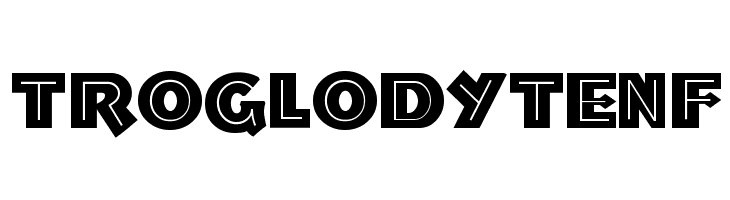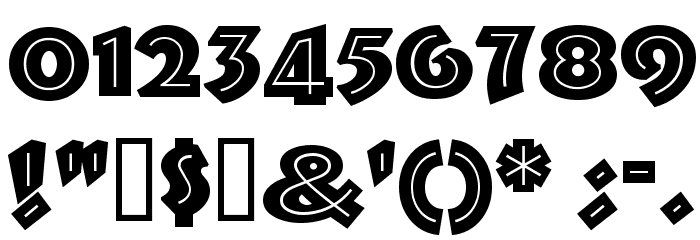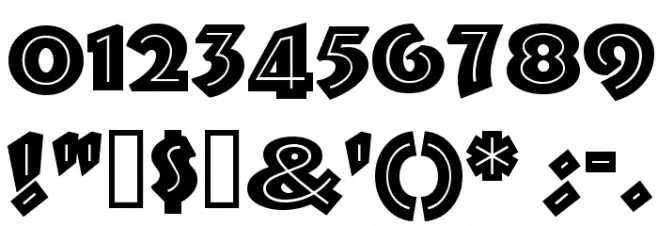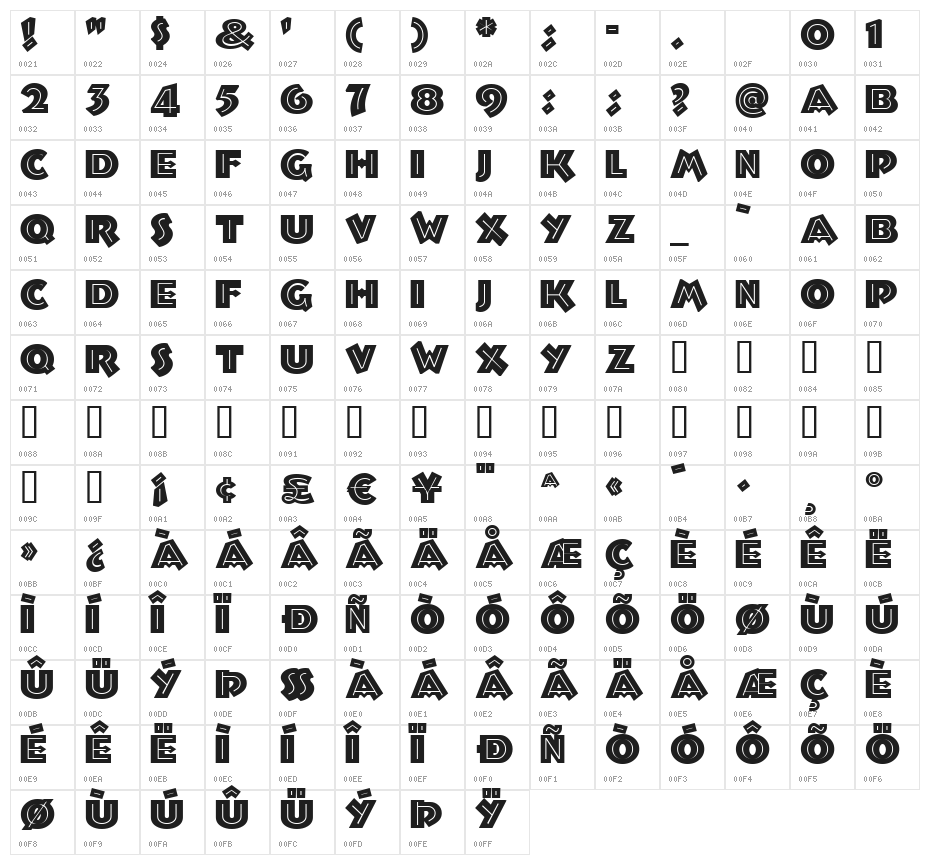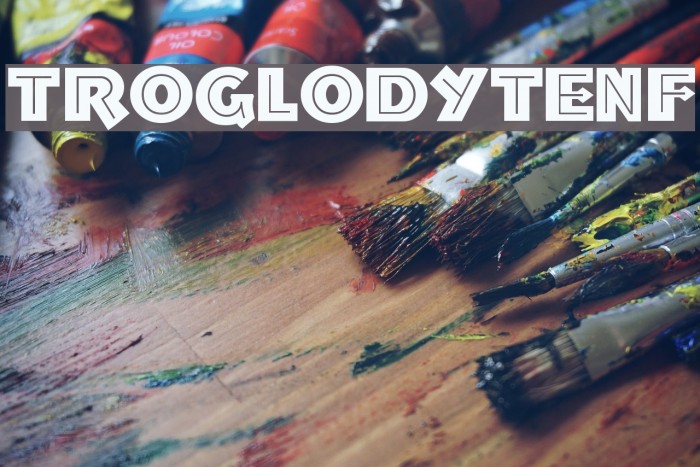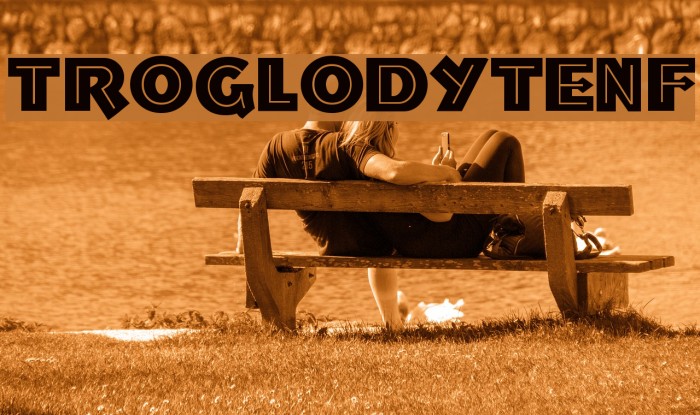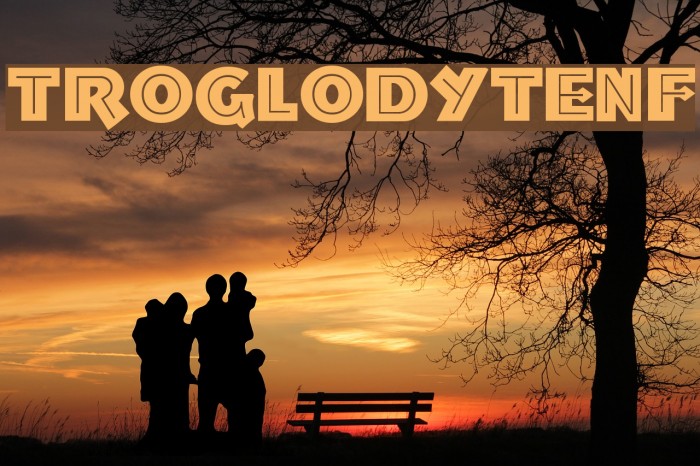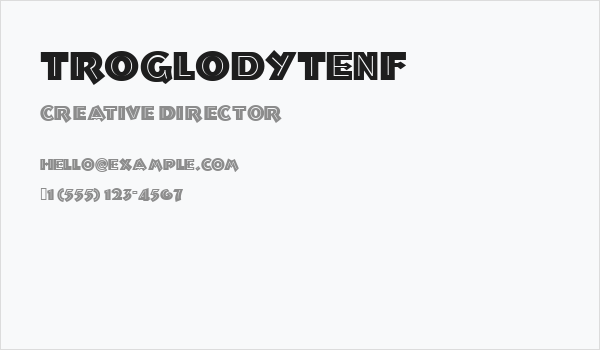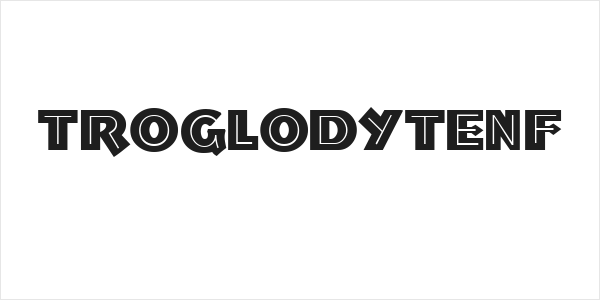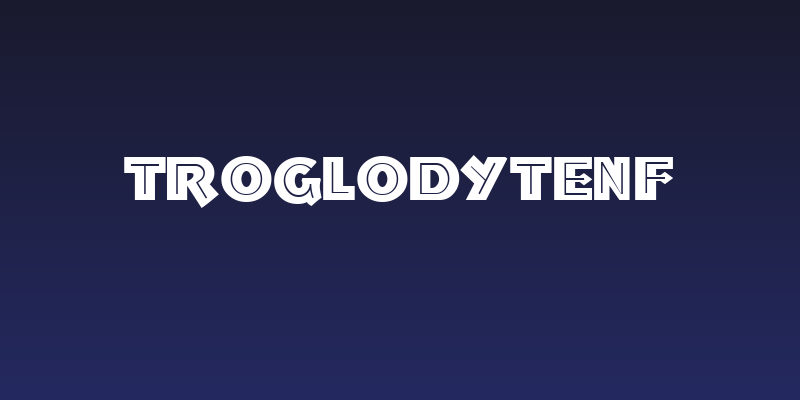
TroglodyteNF Font
TroglodyteNF Description
This font features bold, geometric letterforms with a distinct, playful style. The characters are designed with sharp angles and a three-dimensional effect, giving them a dynamic and eye-catching appearance. The uppercase and lowercase letters maintain a consistent style, with the uppercase being slightly more pronounced. The numbers and special characters follow the same bold and angular design, ensuring uniformity across the typeface. This font's unique style makes it suitable for projects that require a strong visual impact.
| Proposed Projects | Ideal for posters, logos, video game titles, and any design needing a bold, dynamic look. |